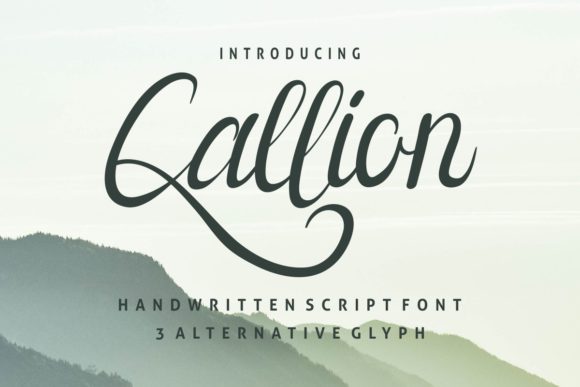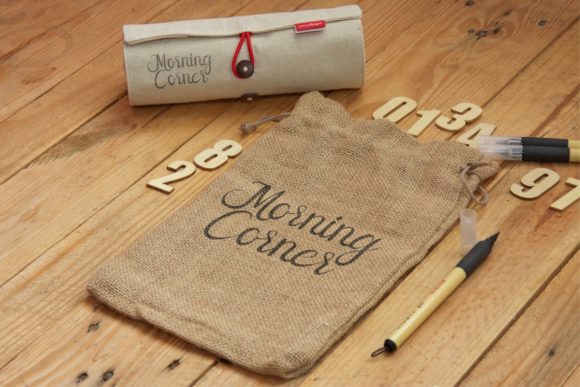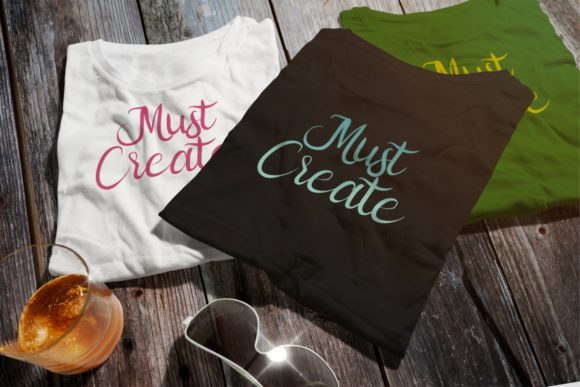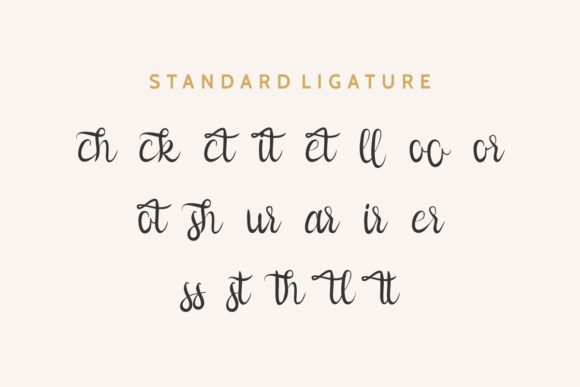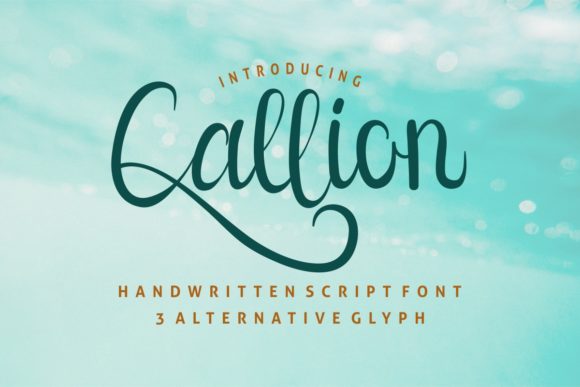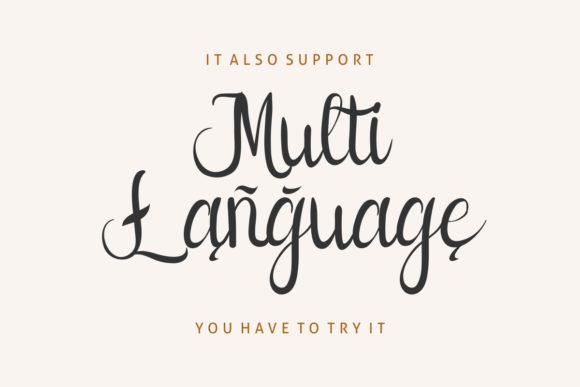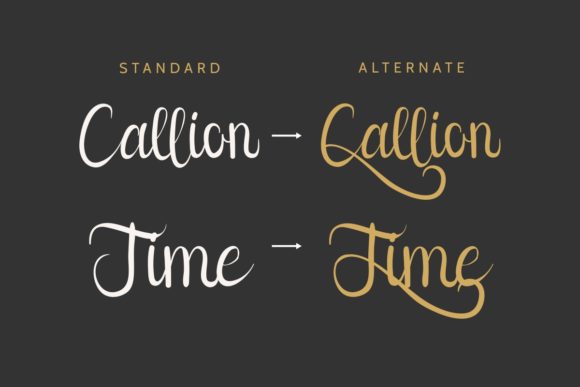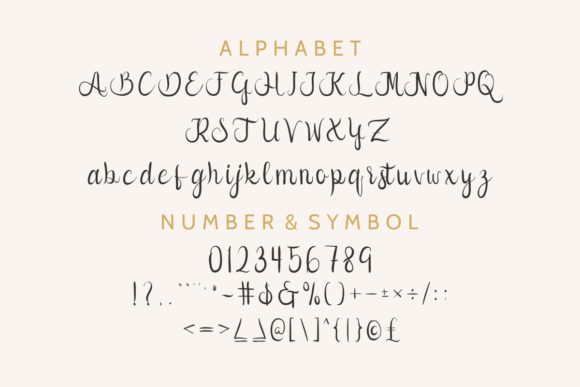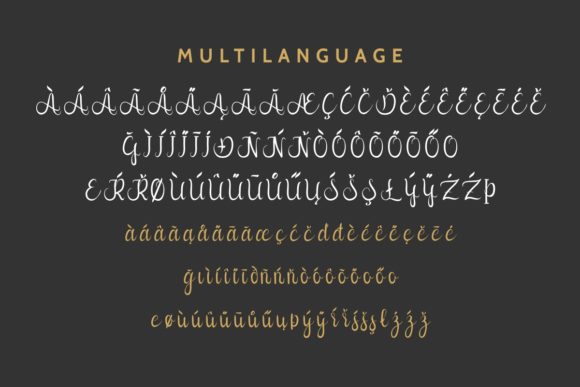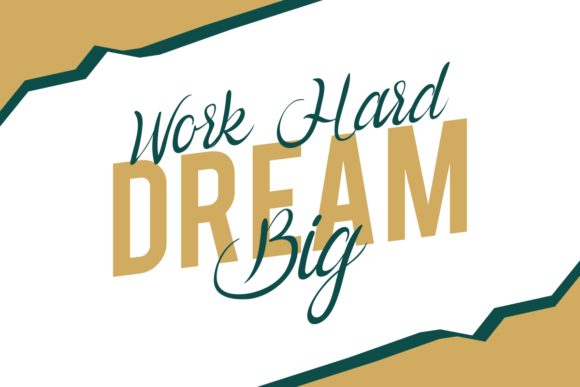
HomeScript FontsCallion Font Script Fonts Callion Font FacebookXPinterestWhatsApp Callion Font Poster 2 Callion Font Poster 3 Callion Font Poster 4 Callion Font Poster 5 Callion Font Poster 6 Callion Font Poster 7 Callion Font Poster 8 Callion Font Poster 9 Callion Font Poster 10 Callion Font Poster 11 Callion Font Poster 12 About Callion Font Callion is a classic handwritten font that combines elegance and personality into one beautiful script! DOWNLOAD NOW People also explored Logo Mock-up Pack Cookies Font Kvitra Font Baliana Font Dento Viola Font Kaka Dory Font Love Heart Font Pekin Syafidol Font 334 0 TagsCallion Font Previous articleLemon Brush FontNext articleThe Promised Font LEAVE A REPLY Cancel reply Comment: Please enter your comment! Name:* Please enter your name here Email:* You have entered an incorrect email address! Please enter your email address here Website: Save my name, email, and website in this browser for the next time I comment. Personal Use Free Rembank Personal Use Free Read more about this font Bright Dreams Personal Use Free Read more about this font Green Fuz Personal Use Free Read more about this font The Sweet Neo Personal Use Free Read more about this font BLOG How to Cut Any Font on Cricut: Convert a Font to SVG (Free) Turn any font into a clean SVG so it cuts crisp on Cricut - a quick 3-step workflow using a free font-to-SVG tool. The 10 Best Handwriting Fonts to Add Personality to Your Designs Exploring Font Trends Top 10 Handwritten Fonts That Elevate Your Designs